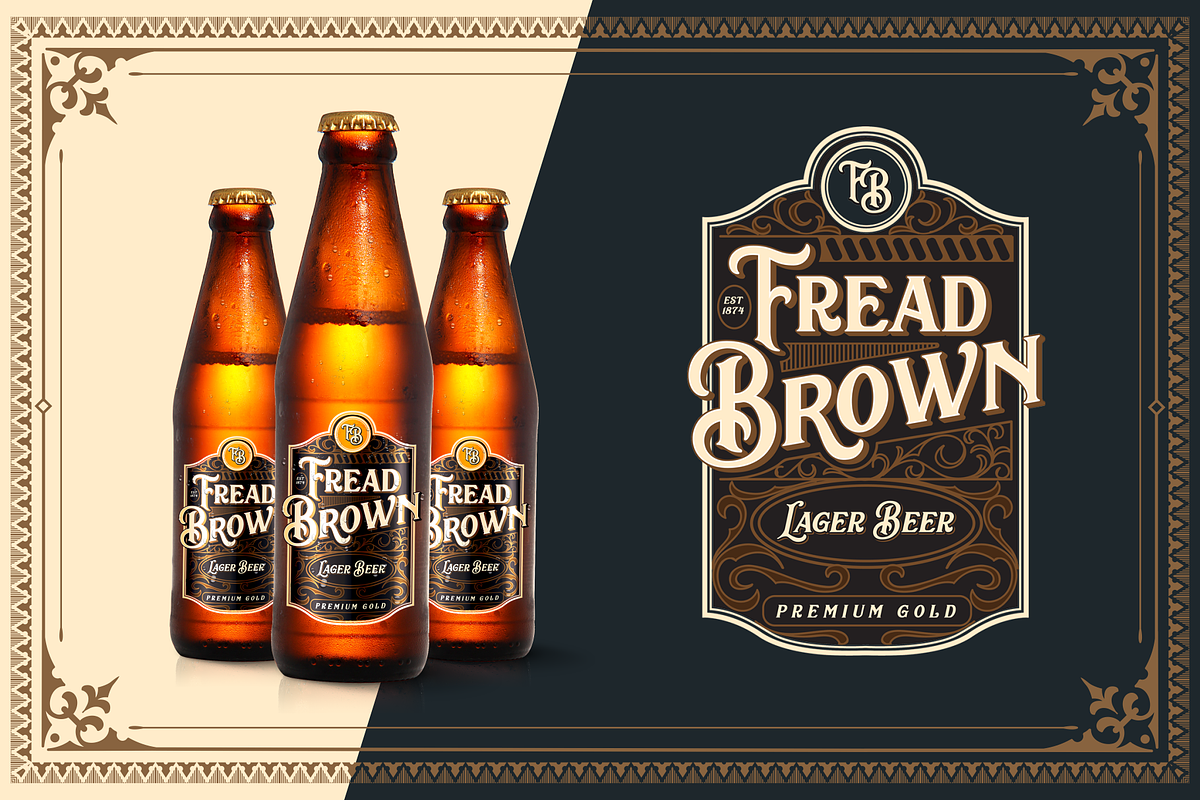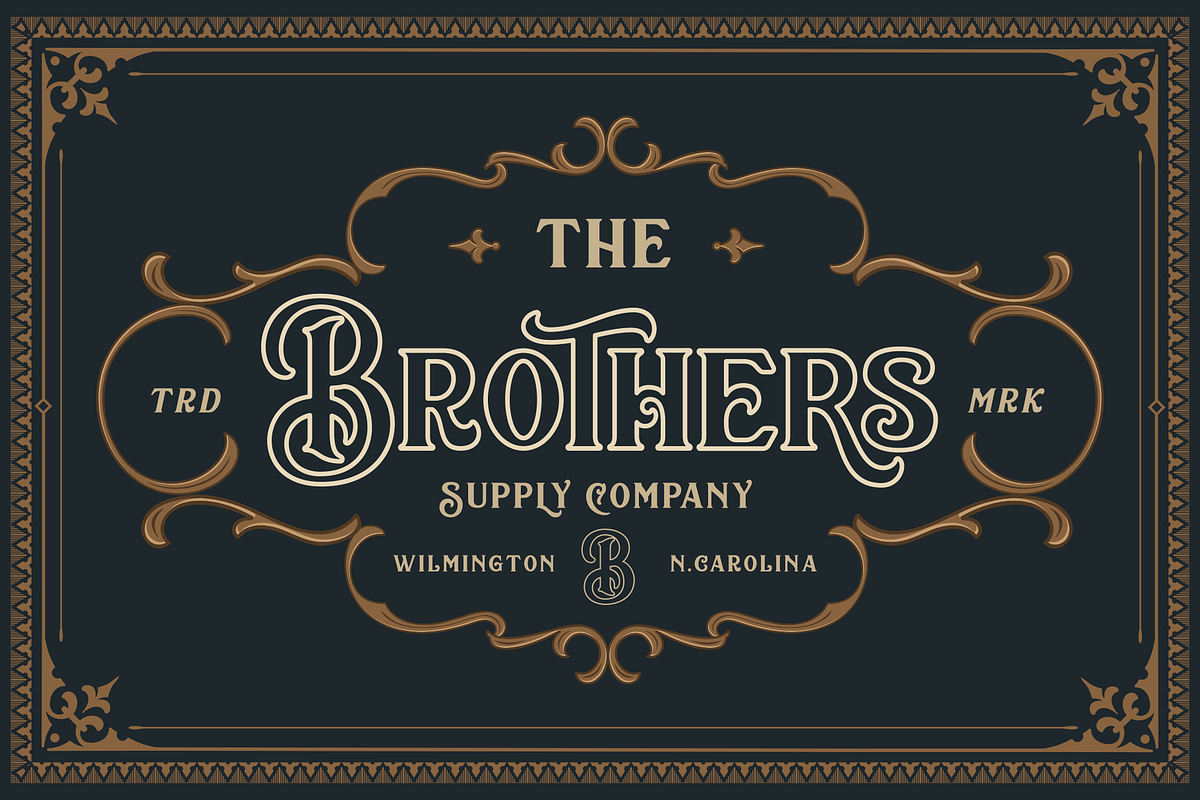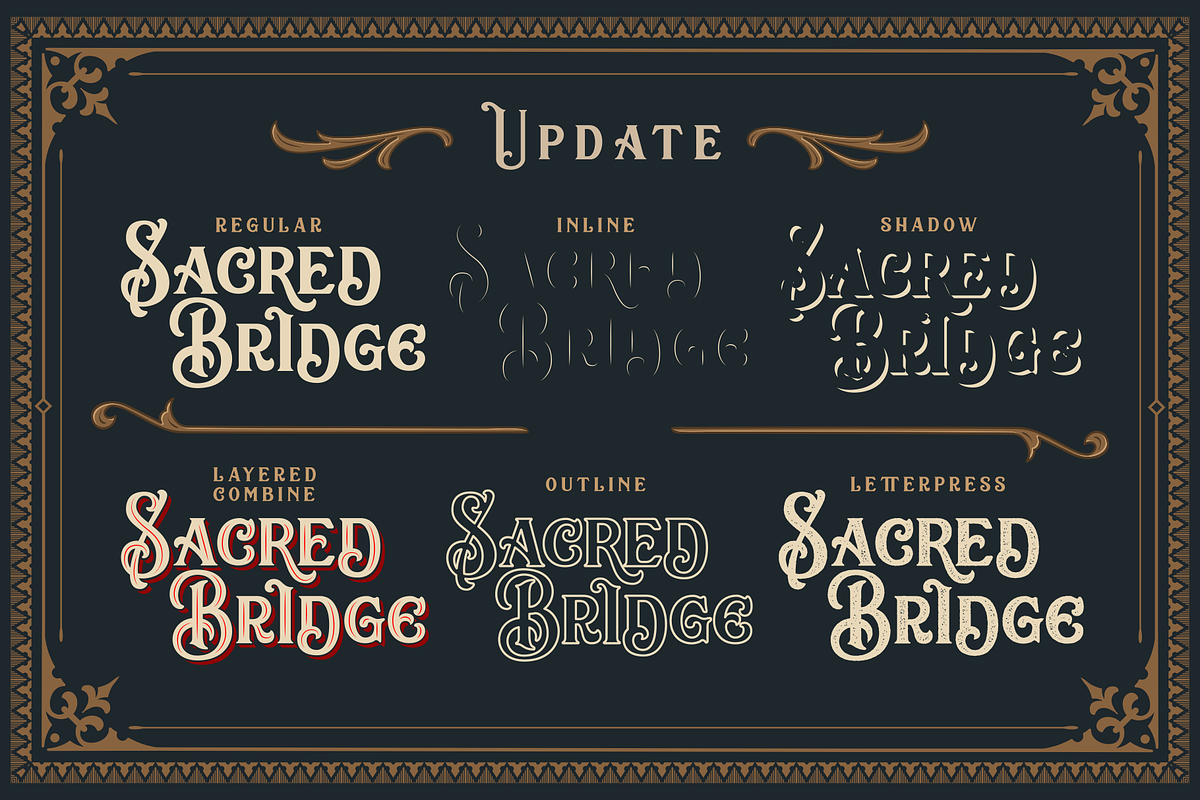
Sacred Bridge is an old-fashioned display typeface was designed by Bombastype, that comes up with a clean and letterpress style, regular and italic with extra ornaments and symbols. It is great for any kind of display purpose from branding, emblem, advertising, t-shirt, etc you name it.